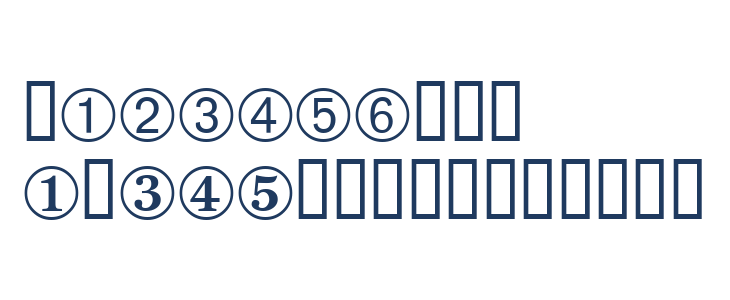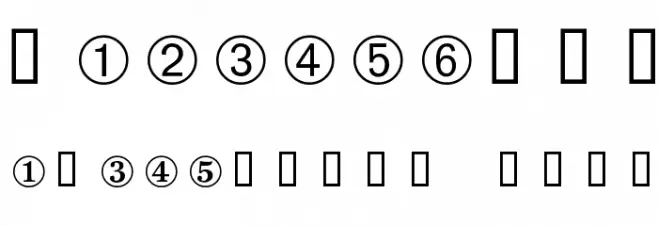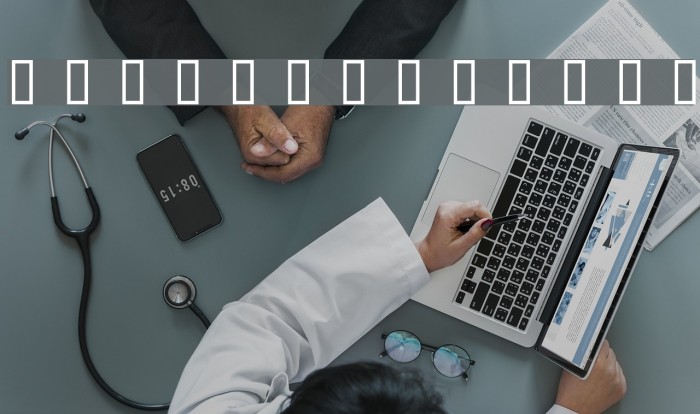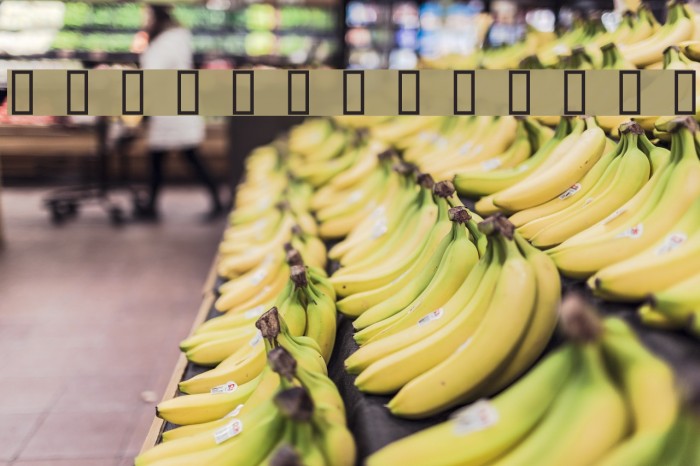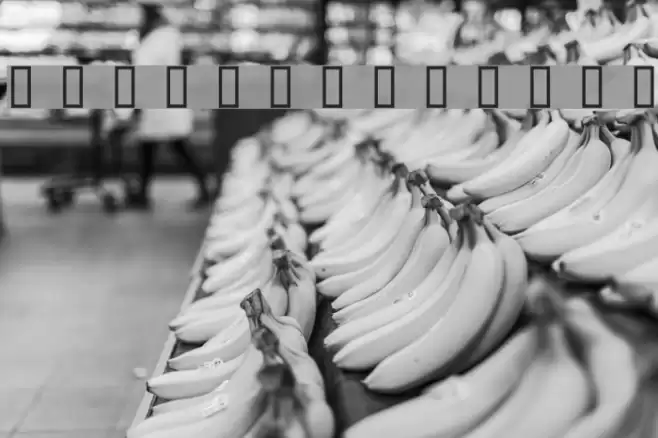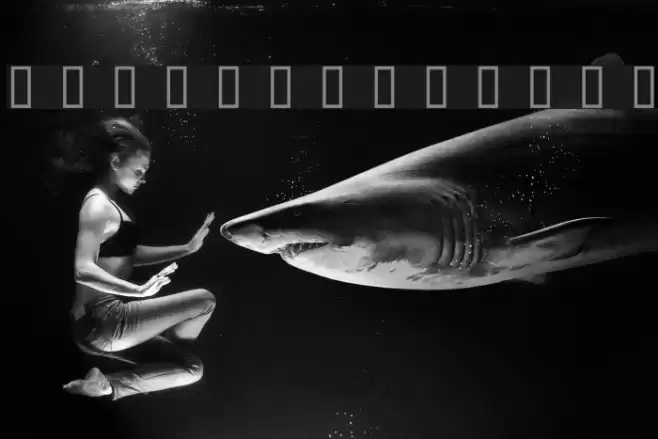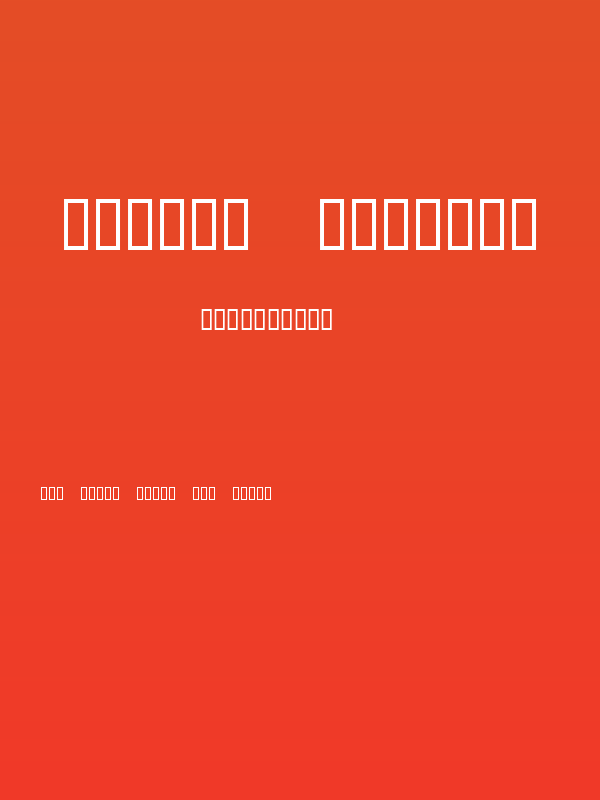
Guitar Strings Font
Guitar Strings Description
This font features a bold, geometric style with a modern aesthetic. Each character is enclosed within a rectangular outline, giving it a unique, framed appearance. The uppercase and lowercase letters maintain a consistent height, contributing to a uniform look. The numerals are distinctively styled with a circular outline, adding a playful touch. Special characters are also enclosed, maintaining the overall design consistency. The font's clean lines and structured form make it suitable for contemporary design projects.
| Proposed Projects | Ideal for modern branding, posters, and digital media where a bold statement is needed. |